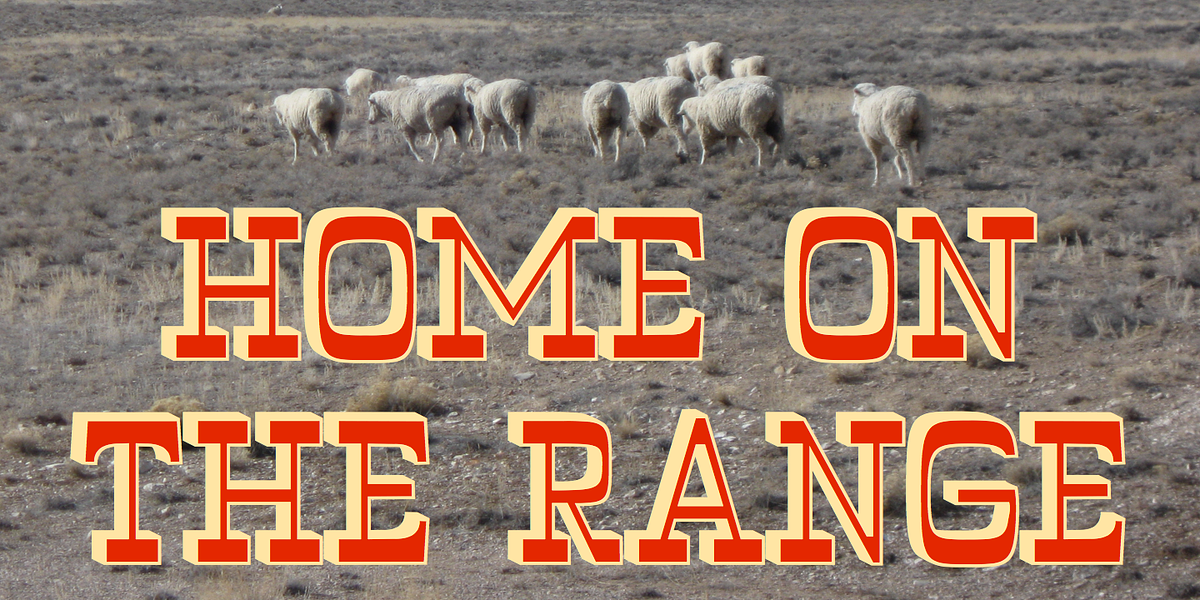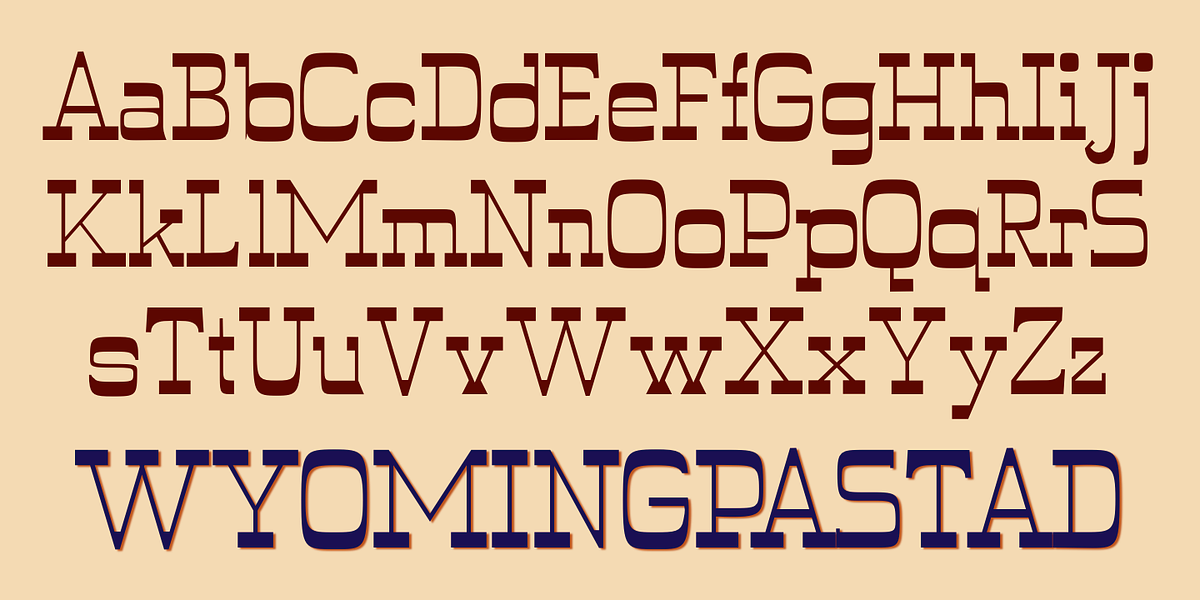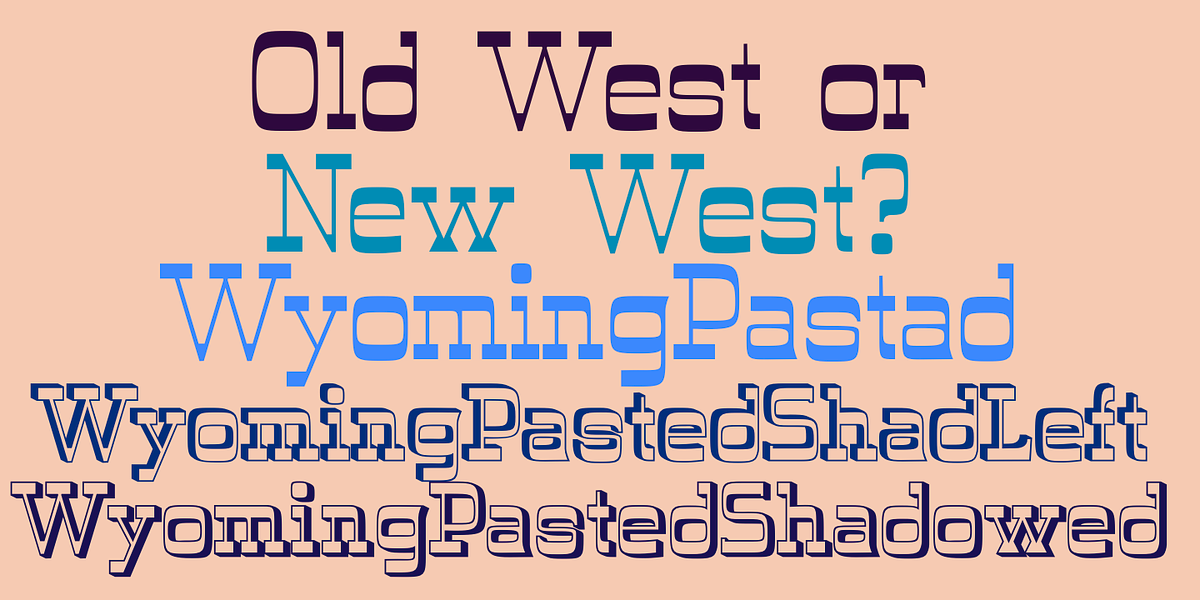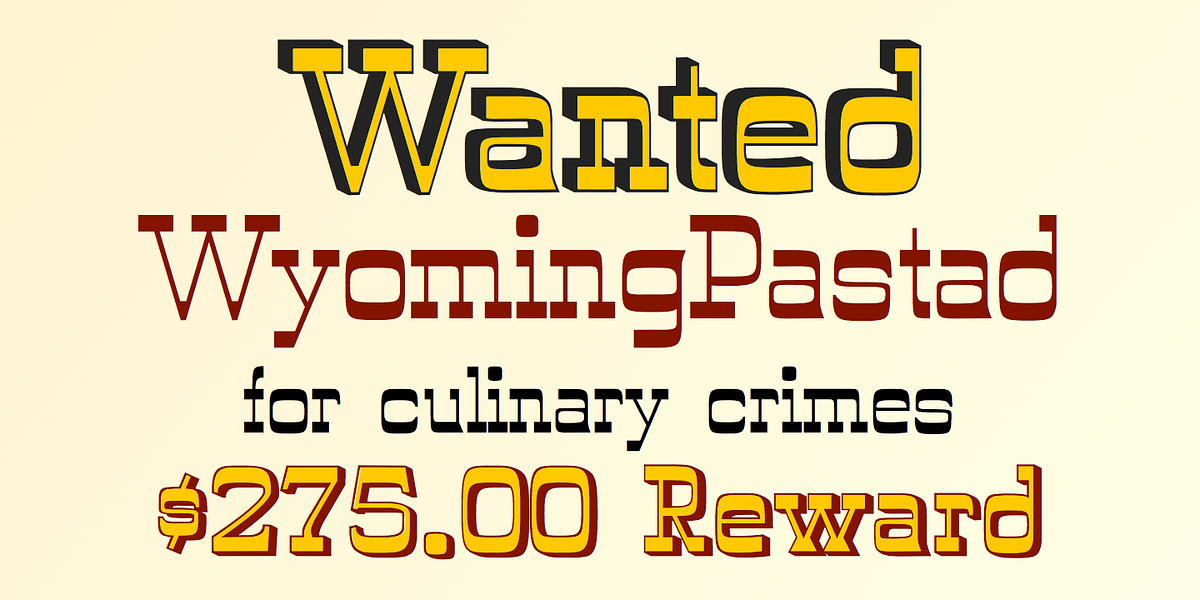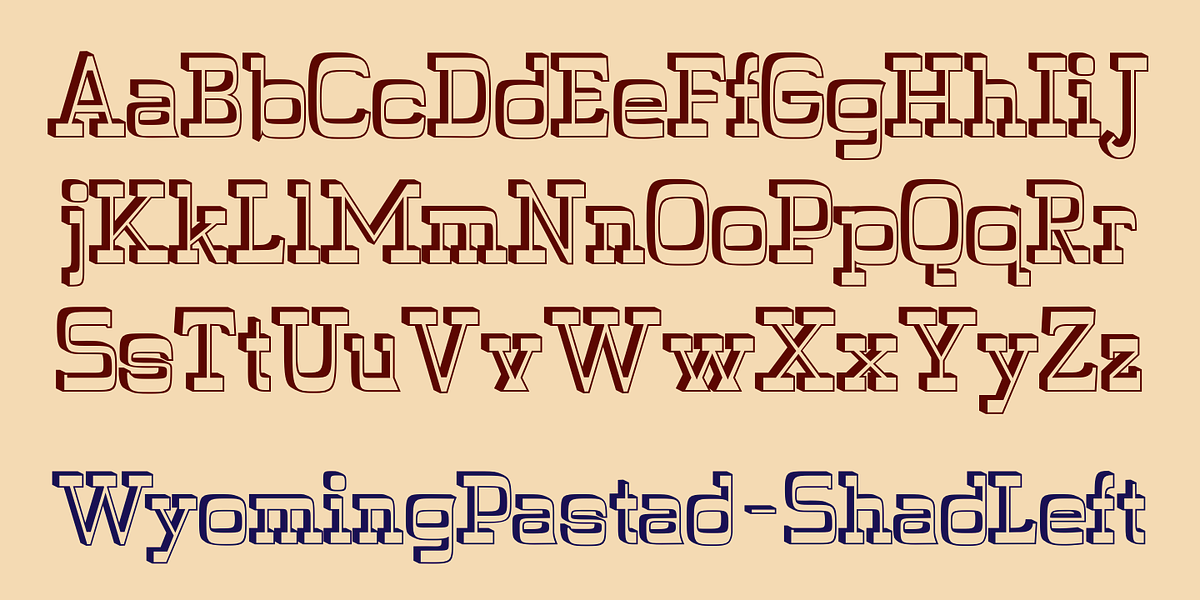
WyomingPastad
Wyoming Pastad is a bold, square-edged display slab serif font with a Western theme. It features shadowed versions that allow for two-colored letter effects.